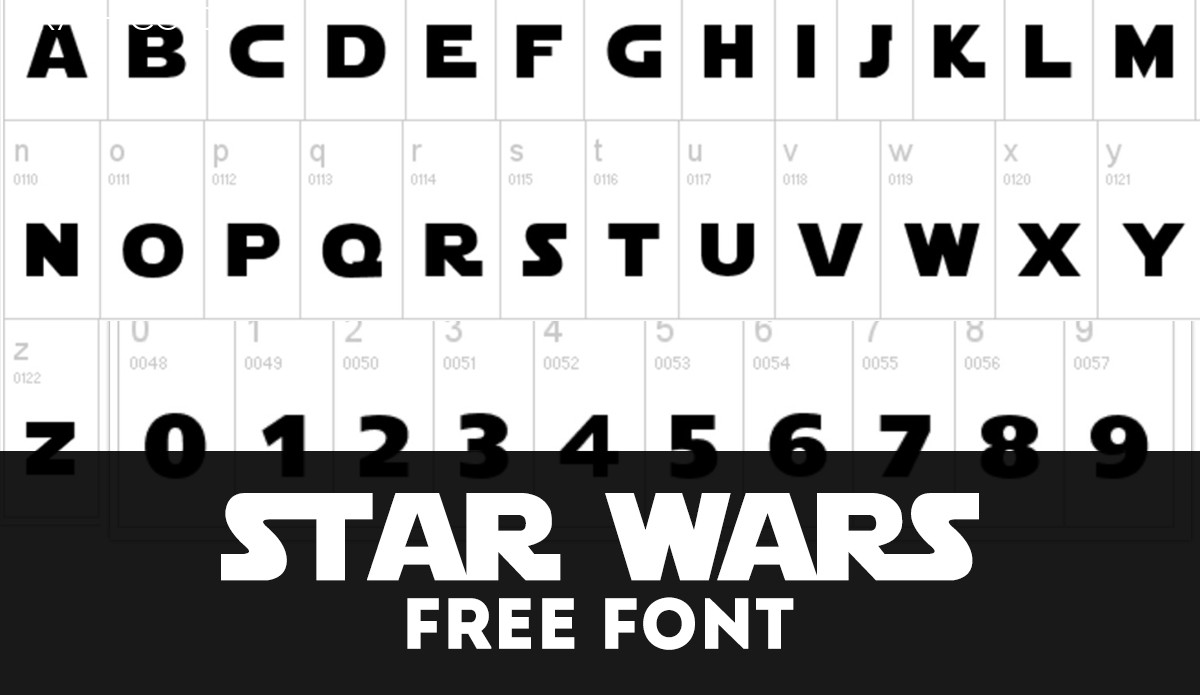
star wars font generator: a Tool to Bring the Galaxy Far, Far Away to Your Designs
Star Wars, the iconic science fiction franchise, has captured the hearts of millions of fans around the world since its debut in 1977. From the epic battles between the Jedi and the Sith to the unforgettable characters like Luke Skywalker and Darth Vader, Star Wars has a special place in popular culture. One of the distinctive elements of the franchise is its typography, which has become instantly recognizable.
If you’re a fan of Star Wars and want to incorporate its unique style into your designs, you’re in luck. The Star Wars Font Generator is a tool that allows you to create text using the iconic Star Wars font. Whether you’re designing a poster for a Star Wars-themed event or simply want to add a touch of galactic flair to your social media posts, this generator is the perfect solution.
Using the Star Wars Font Generator is incredibly simple. All you need to do is type in your desired text, and the generator will instantly transform it into the Star Wars font style. You can then customize the text by adjusting its size, color, and other formatting options. Once you’re satisfied with the result, you can download the generated text and use it in your designs.
What makes the Star Wars Font Generator even more exciting is that it offers various options inspired by different aspects of the Star Wars universe. For example, you can choose to generate text in the style of the famous opening crawl from the movies, or you can opt for fonts that resemble the logos of specific Star Wars movies. With these options, you can truly bring the spirit of Star Wars to your designs.
Not only is the Star Wars Font Generator a fun tool for fans, but it’s also a valuable resource for designers. By incorporating the Star Wars font into their projects, designers can evoke a sense of nostalgia and familiarity, instantly connecting with Star Wars enthusiasts. Whether it’s for promotional materials, merchandise, or social media content, the Star Wars font adds a unique touch that sets designs apart.
In conclusion, the Star Wars Font Generator is an excellent tool for fans and designers alike. It allows users to easily create text in the iconic Star Wars font style, bringing a touch of the galaxy far, far away to their designs. Whether you’re a die-hard Star Wars fan or simply appreciate its distinctive typography, this generator is sure to enhance your creative projects. May the force be with you as you explore the possibilities of the Star Wars Font Generator!